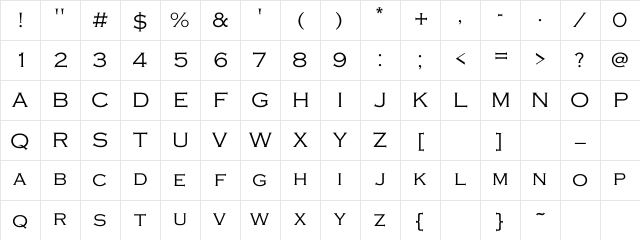
SteelPlateGothic takes a clean, functional approach - its unadorned letterforms prioritise legibility and work reliably across screen and print environments.
Font Pairing: Works well alongside a characterful serif or display font that can carry the expressive load while SteelPlateGothic handles the functional copy.
Pro Tip: Use SteelPlateGothic for UI labels, navigation, and short-form body copy where clean legibility is the priority.